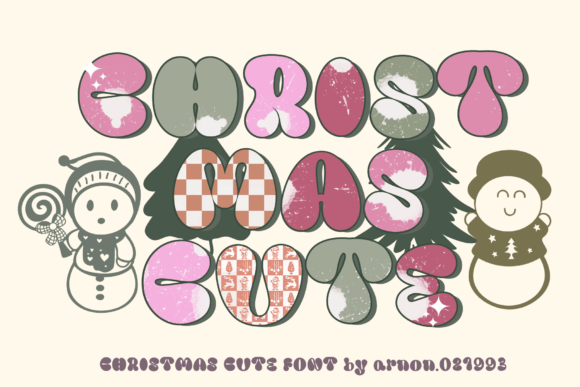
Deck the Halls with Joy: Introducing Christmas Cute Font
That’s where the Christmas Cute Font comes in – a charming display font that injects joy and whimsy into your designs. This delightful font is perfect for adding a playful twist to your holiday projects, from festive greeting cards to merry social media posts. By incorporating the Christmas Cute Font into your creative endeavors, you’ll elevate your designs and make them stand out in the crowd.
Christmas Cute Font Key Features
- Font Family: A set of 12 festive fonts, each with its own unique personality and charm.
- Character Count: Approximately 1500 characters, including uppercase and lowercase letters, numbers, and punctuation.
- Unique Characteristics: The font features a range of whimsical elements, including snowflakes, holly leaves, and Christmas trees, adding a touch of holiday magic to any design.
Designer Review: Christmas Cute Font
Overall, I think the Christmas Cute Font is a delightful addition to any holiday-themed design project. ✨ The font’s playful, handwritten feel instantly evokes a sense of festive cheer and makes it perfect for creating fun, whimsical designs.
Some of the strengths of the font include:
- ✨ Unique, hand-drawn style that adds a personal touch to designs
- ✨ Excellent for creating invitations, greeting cards, and other holiday-themed materials
- ✨ Wide range of characters and glyphs, including ornaments, decorations, and special symbols
- ⚠️ Limited to a single font style, with no bold or italic variations
- ⚠️ May not be suitable for formal or professional designs due to its casual, handwritten feel
- ⚠️ Some characters may not display consistently across different platforms or devices
Overall, I’d give the Christmas Cute Font 4 out of 5 stars. While it’s not perfect, it’s a great choice for anyone looking to add a playful, festive touch to their designs. With a little creativity and experimentation, you can create some truly unique and eye-catching holiday designs with this font.
Tips for Getting the Most Out of Christmas Cute Font
Use Christmas Cute Font to add a touch of whimsy and festive cheer to your designs.
Pair it with bright colors and playful graphics to create a visually appealing design.
Experiment with different font sizes and styles to add depth and interest to your text.
Christmas Cute Font is perfect for:
Creating holiday cards and invitations.
Designing festive social media graphics.
Adding a touch of holiday cheer to your website or blog.